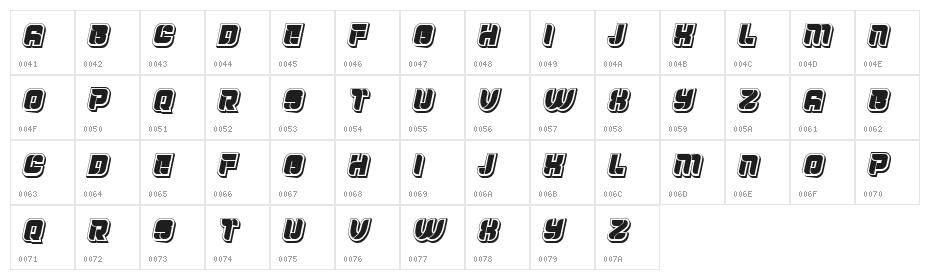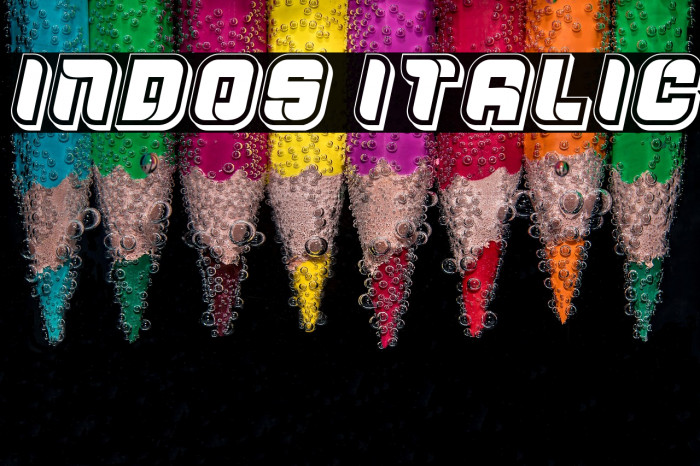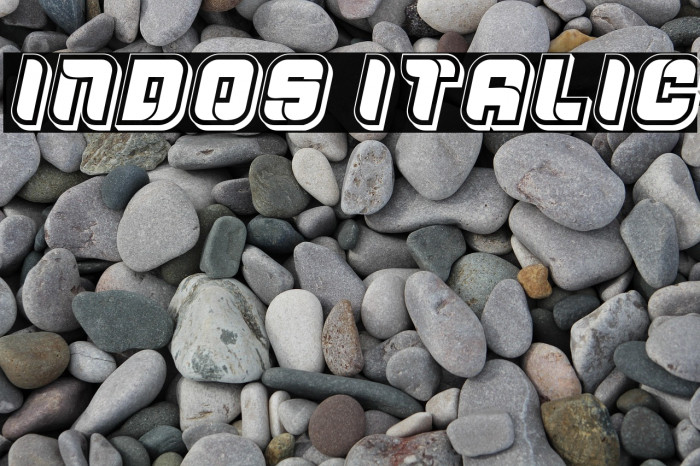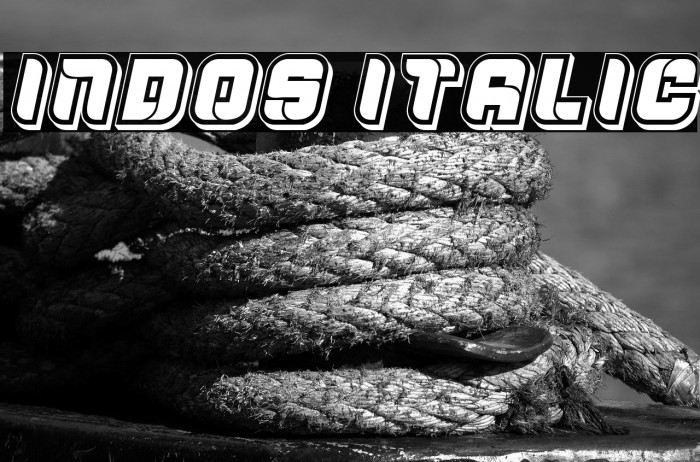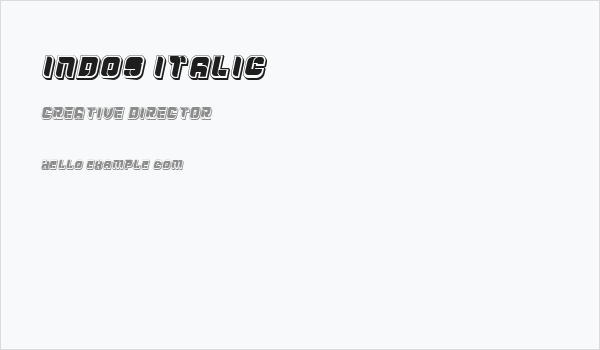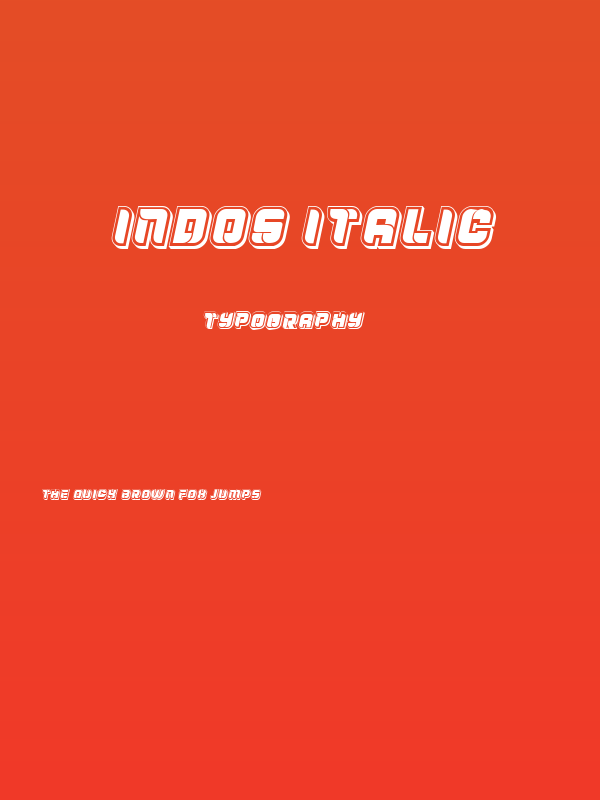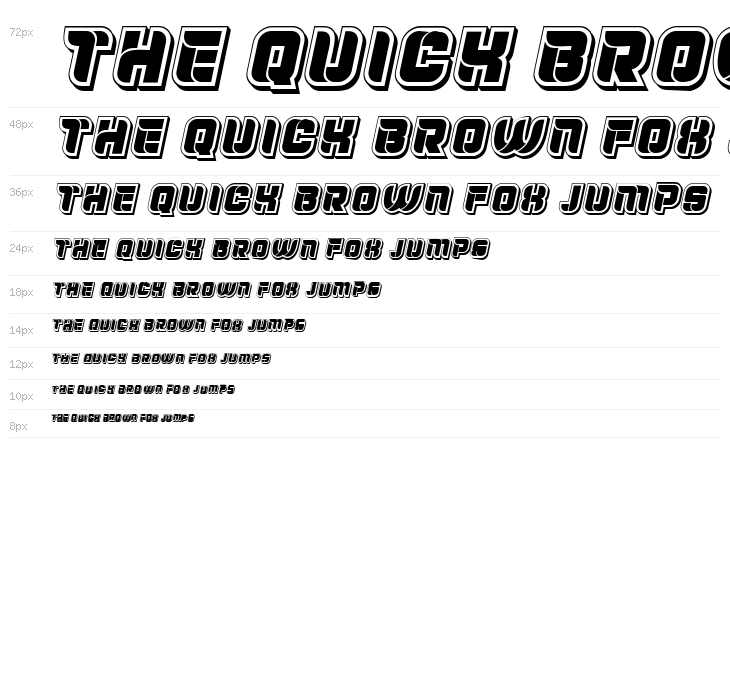
Indos Italic Font
Indos Italic Description
This font features a bold, italicized style with a distinct outline that gives it a three-dimensional appearance. The characters are uppercase and have a strong, impactful presence, making them ideal for attention-grabbing designs. The strokes are thick and consistent, with a slight slant that adds dynamism and movement. The outline adds depth, enhancing the visual interest and making the letters stand out. This font is perfect for projects that require a bold statement, such as posters, headlines, or branding materials. Its unique style combines modernity with a touch of retro flair, making it versatile for various design themes.